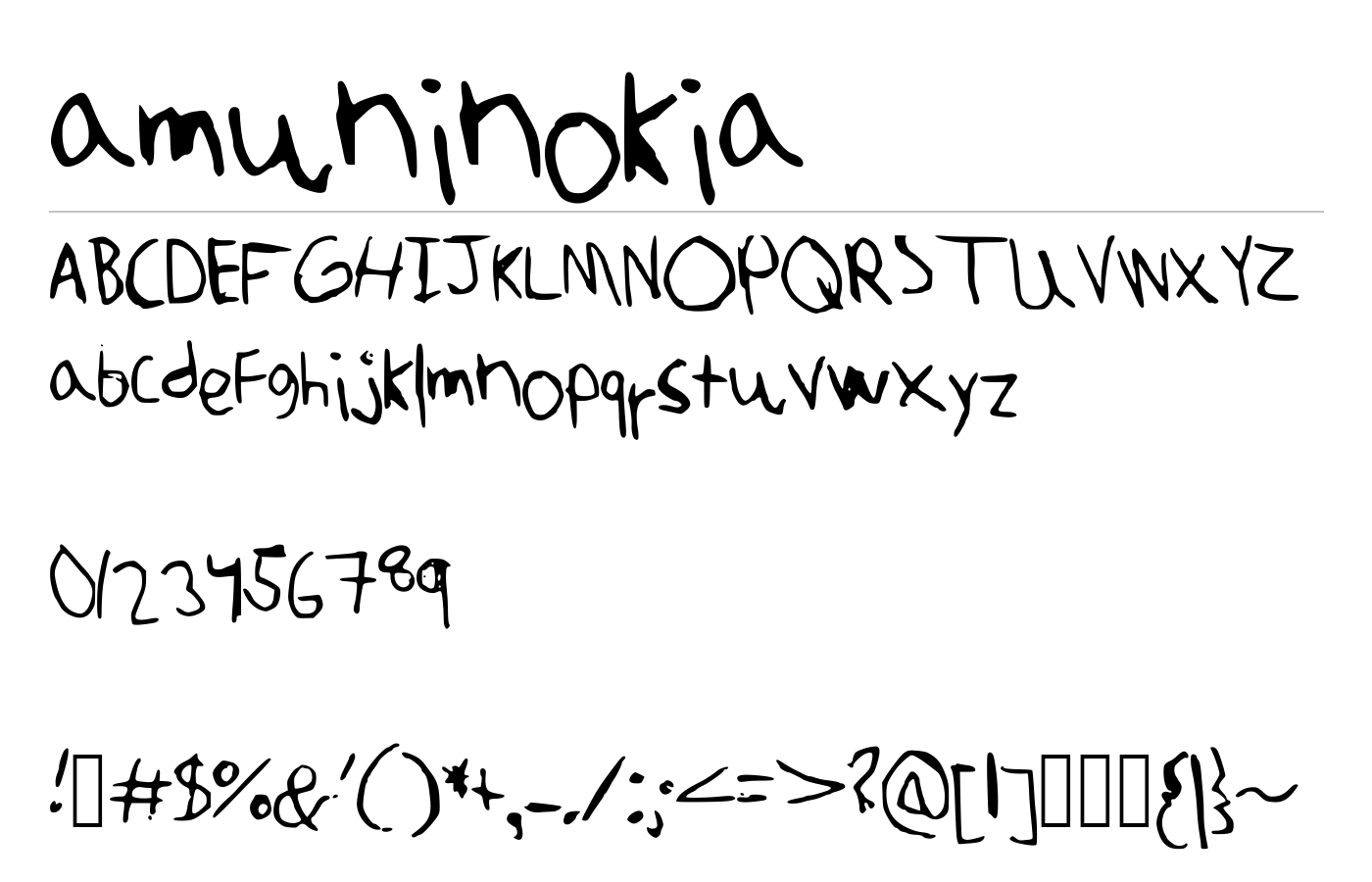
Amuninokia is a quirky, hand-drawn sans serif font with an informal and playful character. Its irregular, uneven strokes and unique letter shapes give it a casual, spontaneous feel, making it perfect for creative projects, children’s content, and personal branding where a friendly, approachable style is desired. This font works best in headlines, posters, or any design that benefits from a touch of personality and charm.
amuninokia Font
About amuninokia Font